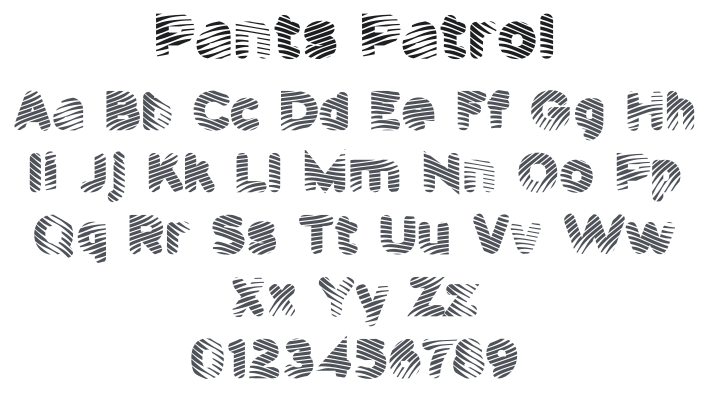
Pants Patrol Font
About Pants Patrol
Pants Patrol is a bold, chunky display typeface where every letterform is filled with flowing diagonal stripes that create a mesmerizing wave-like optical illusion — as if each letter is gently undulating. The rounded, friendly underlying forms keep it playful rather than dizzying. Perfect for pop art posters, psychedelic designs, festival graphics, fashion branding, and any headline that needs hypnotic, eye-catching visual movement.